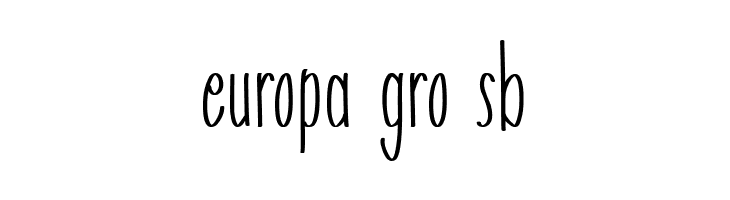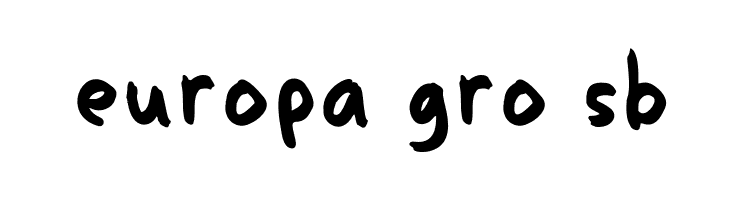
A playful, handwritten font with tall, narrow letters and a whimsical style.
A playful, handwritten font with a bold and casual style.
A playful, bold font with whimsical curls and swirls.
A dynamic, brush-style script font with expressive cursive forms.
A bold, expressive script font with dynamic, textured strokes.
A modern, geometric font with uniform line thickness and a sleek design.
A modern, geometric font with consistent stroke widths and high legibility.
A modern, slanted sans-serif font with a clean and dynamic appearance.
A bold, geometric font with a pixelated, retro digital aesthetic.
A grungy, distressed font with an uneven, chaotic style.
A bold, cursive font with elegant, flowing strokes and a modern calligraphic style.
A dripping, liquid-style font perfect for spooky or whimsical designs.
A bold, 3D block font with a textured, industrial appearance.
A bold, blackletter font with sharp, angular lines and a historical Gothic style.
A bold, italic Blackletter font with sharp, angular strokes and a gothic aesthetic.
A bold, dynamic script font with a playful, handwritten style.
A bold, dynamic script font with interconnected letters and a playful style.
A bold, modern font with a unique halftone texture and consistent width.
A bold, Gothic-style font with sharp, angular lines and ornate detailing.
A bold, 3D geometric font with outlined characters and a futuristic style.
A bold, 3D italic font with an outlined, dynamic appearance.
A bold, geometric, and condensed font with a modern and futuristic style.
A bold, condensed, and italicized font with a dynamic and futuristic style.
A bold, geometric font with a modern, tech-inspired design.
A bold, expanded italic font with a modern, dynamic style.
A bold, italicized font with a modern, dynamic style and sharp angles.
A bold, angular font with a leftward slant, ideal for modern and dynamic designs.
A bold, geometric font with a modern, tech-inspired style.
A bold, geometric 3D font with sharp angles and clean lines.
A bold, 3D italic font with geometric, outlined characters.
A bold, condensed font with a modern, geometric style.
A bold, condensed, and italicized font with a modern, angular design.
A bold, angular, and slightly italicized font with a modern and dynamic style.